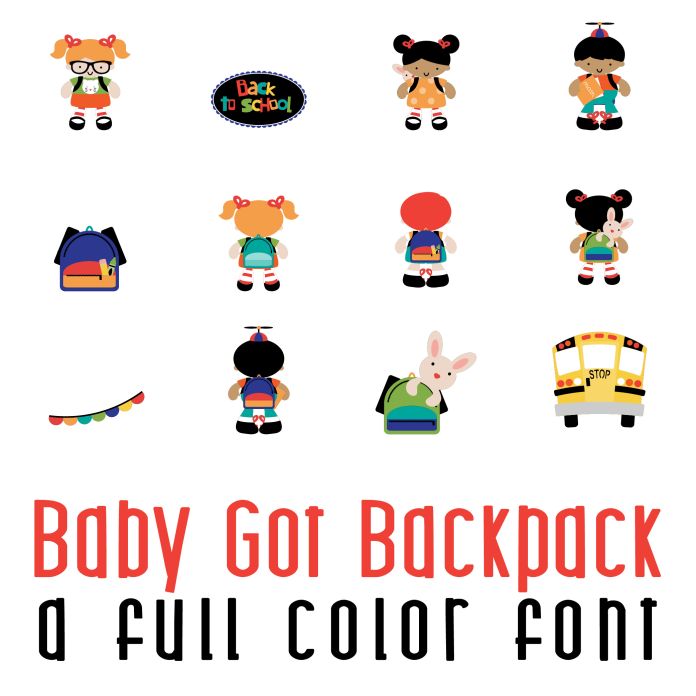
This fun full color font features 26 school kids, supplies all in adorable backpacks perfect for cards, crafts, gifts, planner stickers, scrap book pages, classrooms and more!